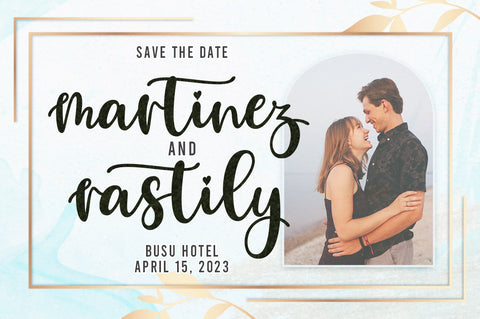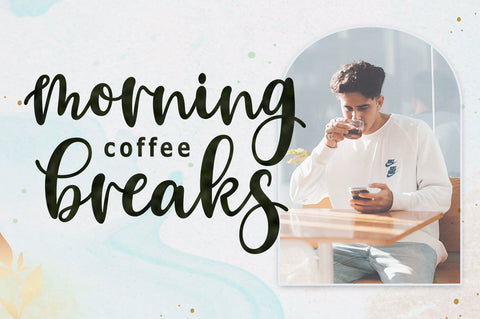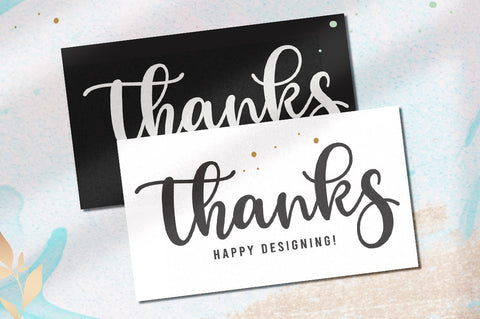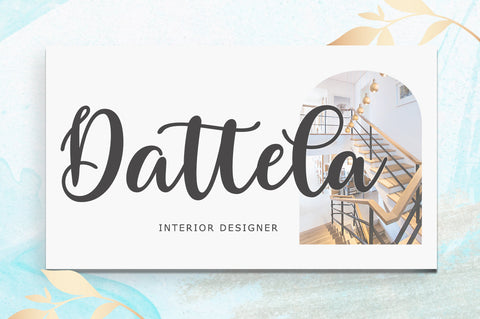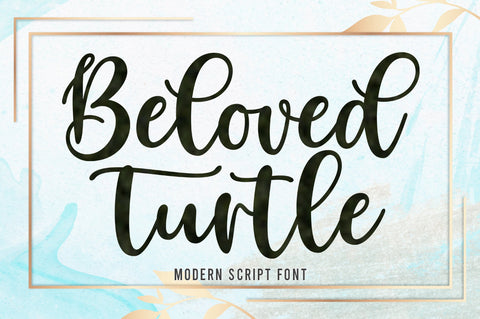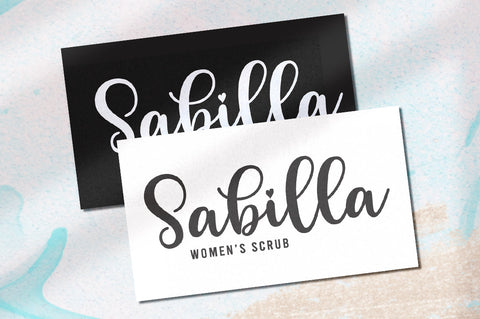
Beloved Turtle | Script Font
Beloved turtle are beautiful and romantic writing fonts. Looks amazing on wedding invitations, thank you cards, quotes, greeting cards, logos, business cards and any other design.
This font is PUA encoded which means you can access all glyphs and swashes with ease!
The font includes OpenType features with alternative styles, ligatures, and multiple language support.